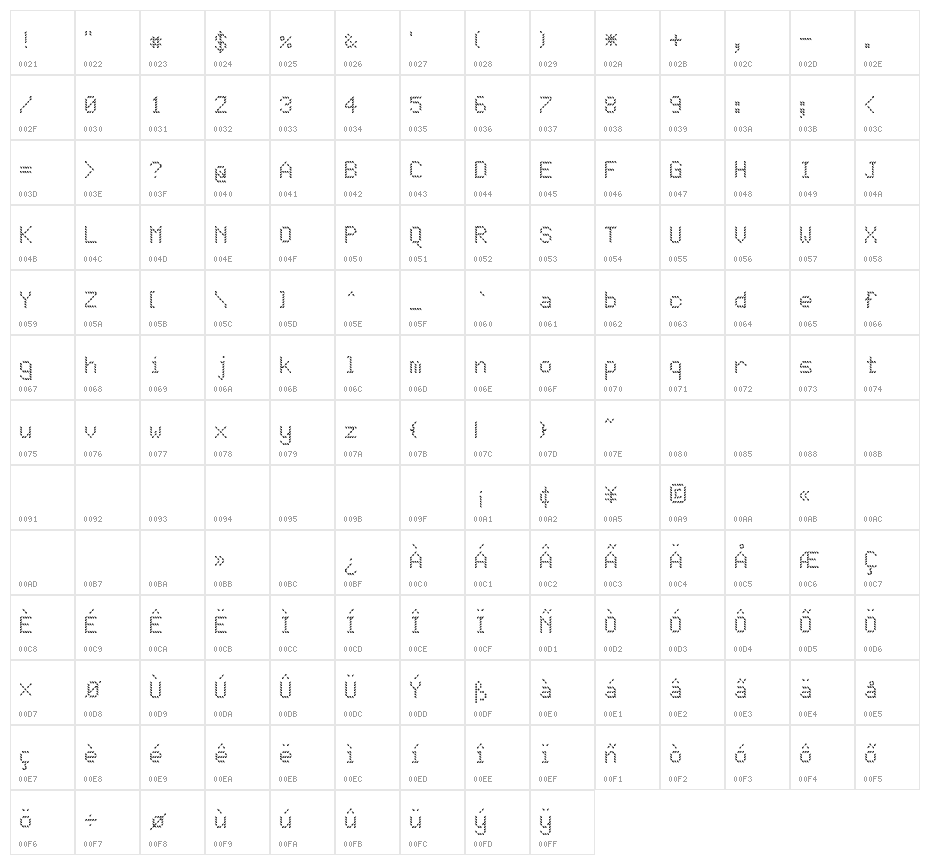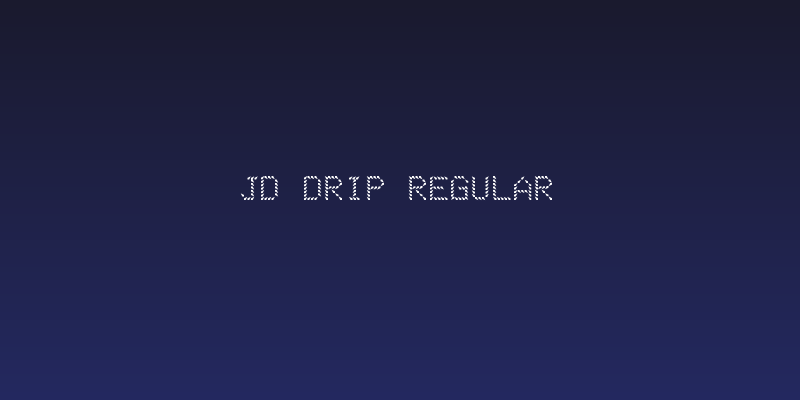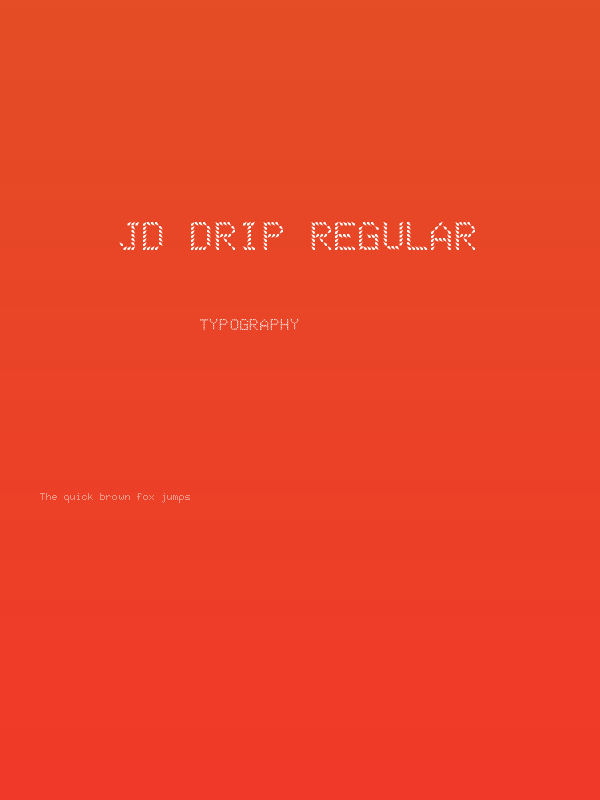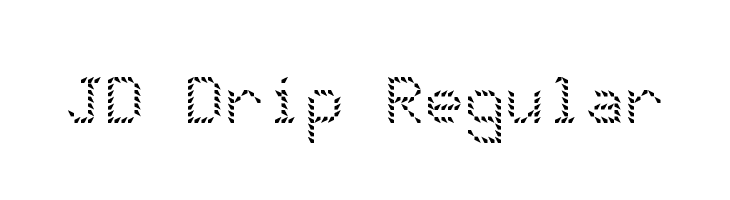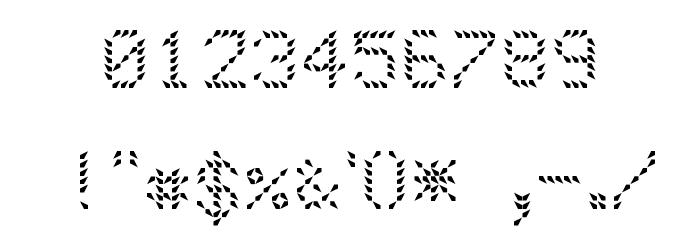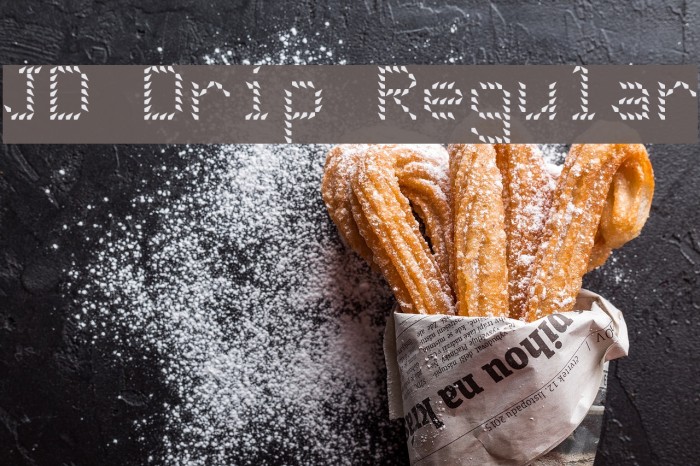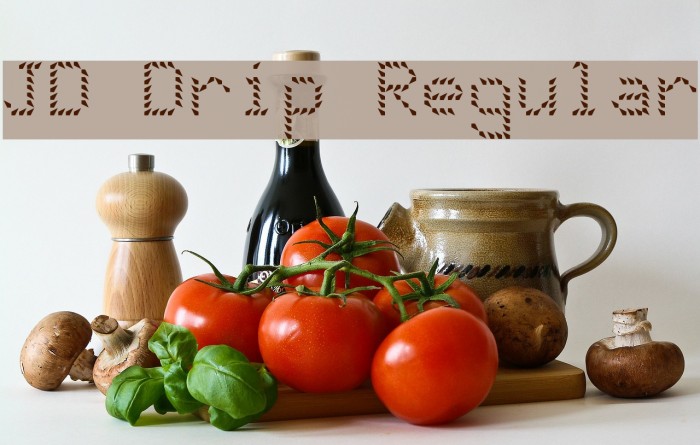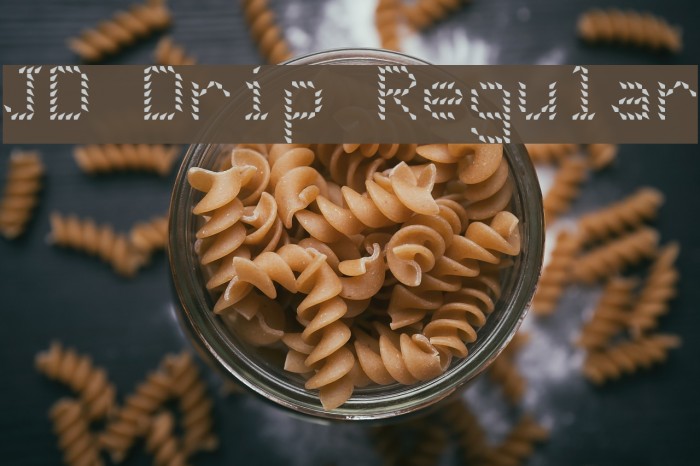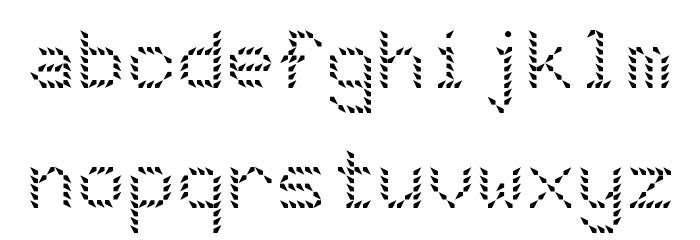
JD Drip Regular Font
JD Drip Regular Description
This font features a unique, decorative style with a pattern resembling diagonal stripes or stitches across each character. The uppercase and lowercase letters maintain a consistent design, creating a cohesive look. The numerals and special characters follow the same pattern, ensuring uniformity throughout. The font's playful and distinctive appearance makes it stand out, ideal for creative and artistic projects. Its design is both modern and eye-catching, suitable for various applications where a bold statement is desired.